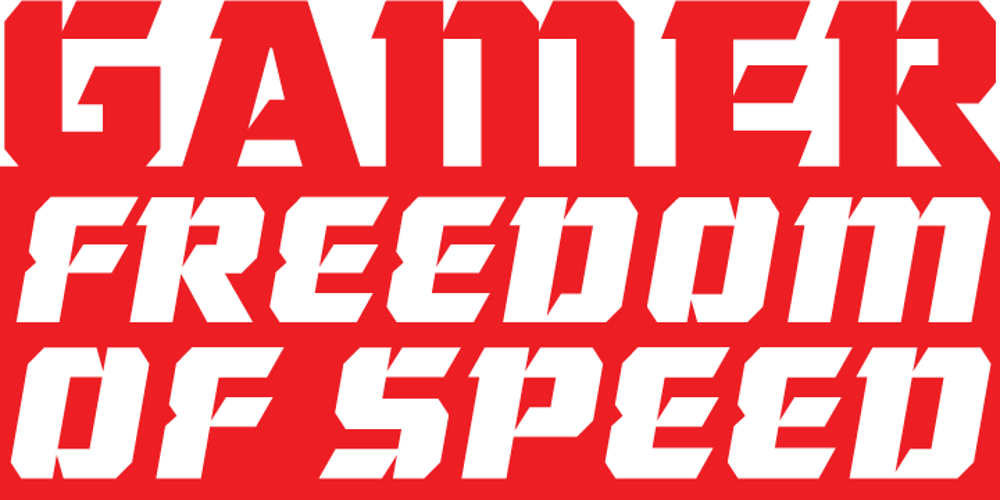
Gamer Font Family was designed by Rebecca Alaccari, Patrick Griffin and published by Canada Type. Gamer contains 28 styles and family package options. Canada Type released the first version of Gamer in August of 2004. It was modeled after a few 1972 magazine advertisement letters, the origin of which was later identified as a common film type called Checkmate. In the spring of 2006, Patrick Griffin revisited the family to optimize a few minor oversights and add small caps to the speedy mechanical face. Now Gamer is truer than ever to its popular history as the defining Escape From New York movie poster and packaging face, a gun with a six-barrel engine that exudes heat, speed, strength and sharpness. Gamer comes in all popular font formats, and contains a few alternates within the character map of each of its fonts.